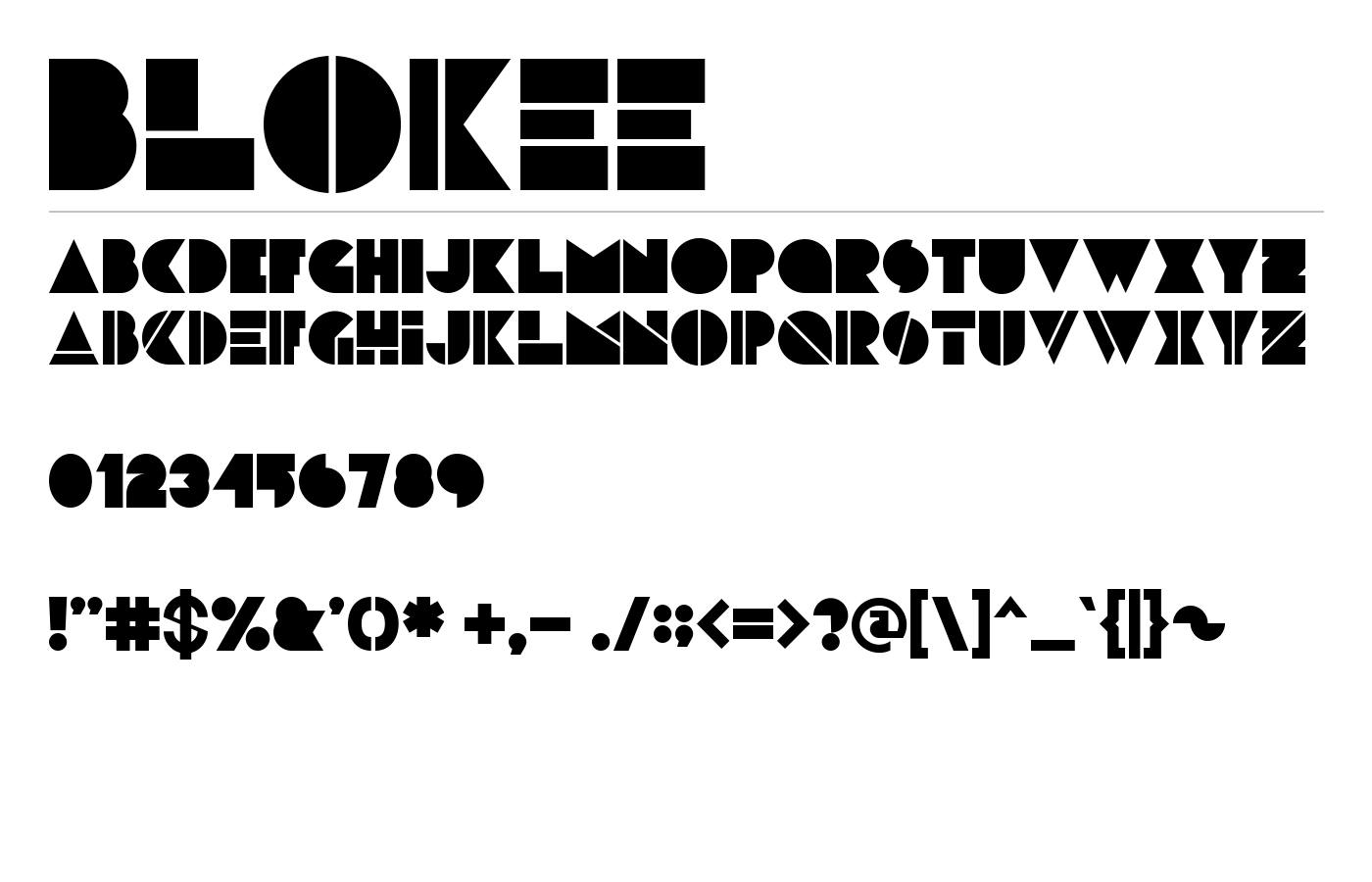
Blokee is a bold, geometric display font with strong block-like shapes and high contrast between thick and thin segments, creating a striking visual impact. Its sharp, angular letterforms and unique segmented design give it a modern, edgy personality that works well for attention-grabbing logos, posters, and branding projects seeking a contemporary and playful vibe. This font is best suited for headline use where its distinctive style can shine and draw the viewer’s eye.
Blokee Font
About Blokee Font